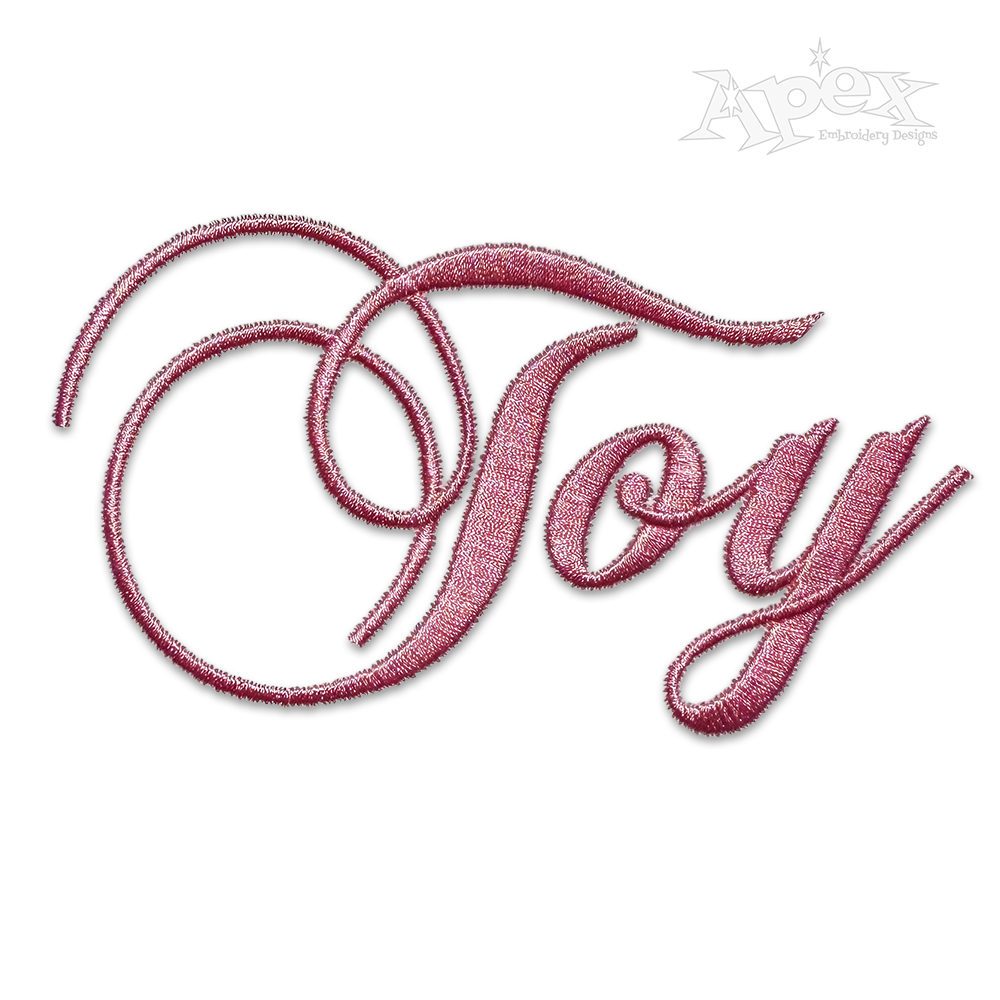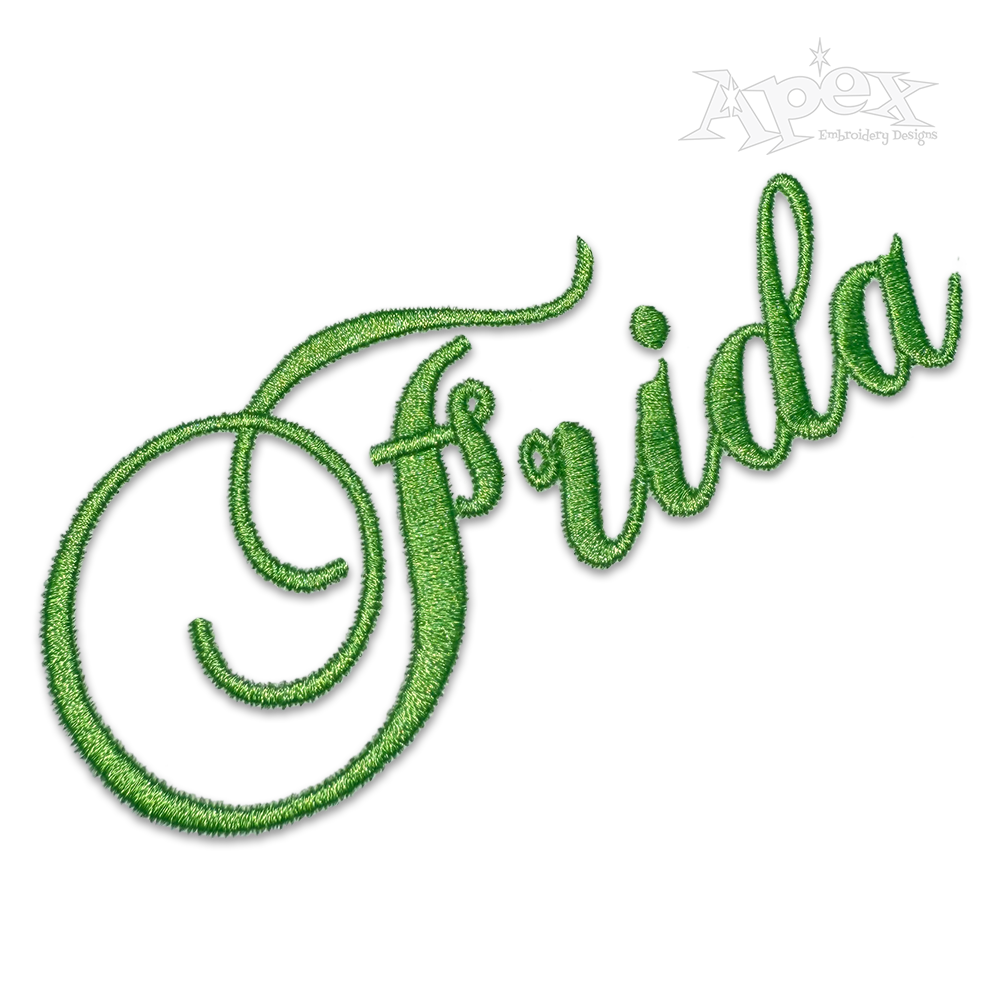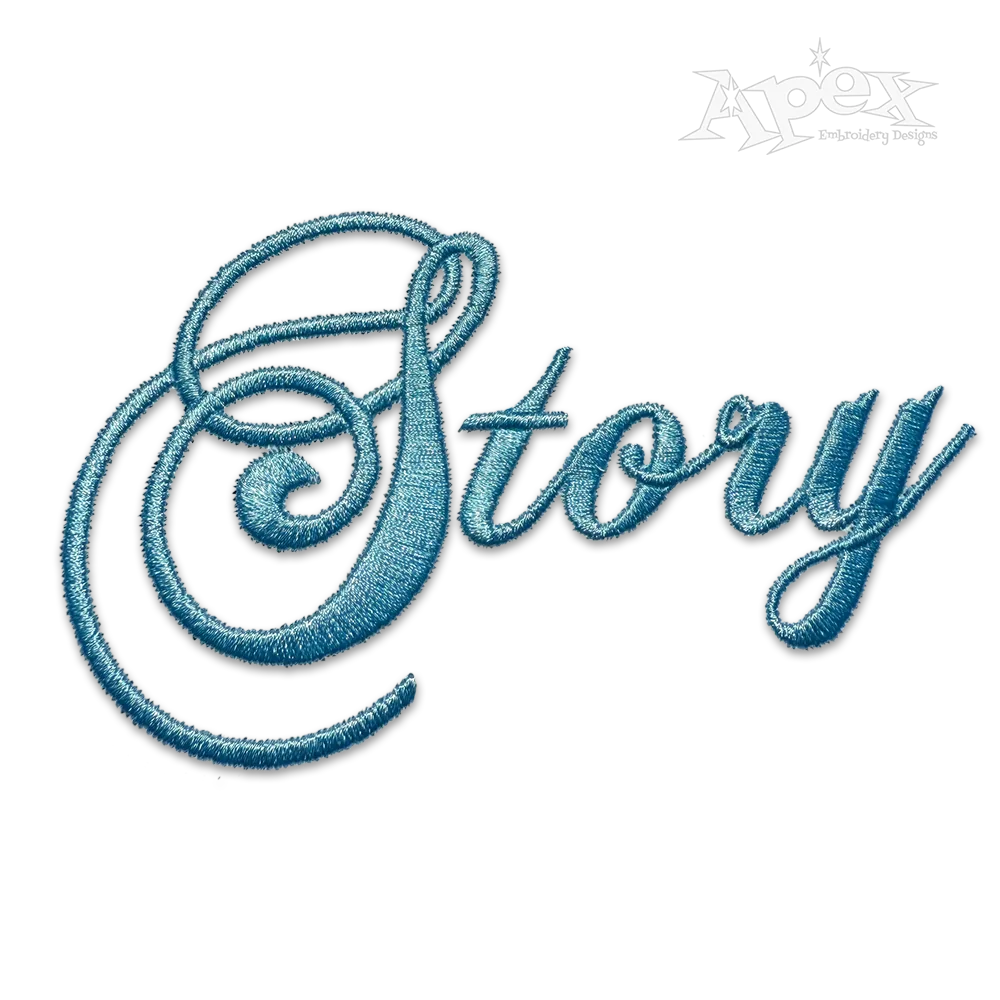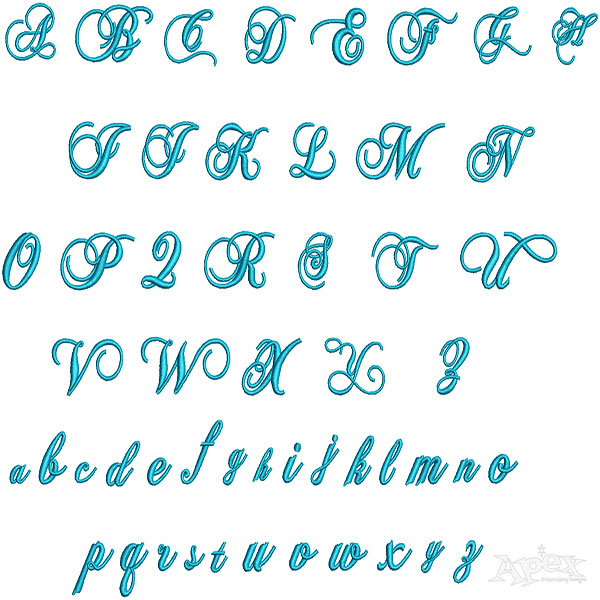
Story Book Embroidery Font
Drawing inspiration from the gold-leafed spines and hand-drawn initial capitals of vintage illustrated classics, our Story Book Embroidery Font brings timeless wonder to life beneath the needle. When digitizing this charming alphabet, we wanted every swoop, terminal, and crossbar to evoke the nostalgic warmth of an enchanted tale being whispered before bedtime. It strikes an exquisite balance between storybook whimsy and tailored elegance, flowing with a natural rhythm that turns simple custom monogramming and personalized phrases into cherished, embroidered keepsakes.
Project Ideas for Story Book Embroidery Font
The nostalgic storybook character of this satin stitch alphabet lends itself to a broad array of heirloom needlework and upscale lifestyle accents:
- Heirloom Nursery Bedding: Embroider newborn names or birth initials onto scalloped baby blankets, cot duvets, and linen pillows.
- Luxury Table Linens: Stitch crisp single-letter monograms in the corners of hemstitched linen cocktail napkins and holiday dinner runners.
- Bridal Party Keepsakes: Personalize silky getting-ready robes, bridal clutch linings, and honeymoon canvas totes for the wedding party.
- Bespoke Resort Wear: Add jaunty, characterful lettering to linen camp shirts, sun hats, and poolside terry coverups.
- Grand Statement Decor: Use the sweeping 10" or 12" letters to create monogrammed nursery wall banners, bespoke reading-nook floor cushions, or dramatic holiday tree skirts.
- Personalized Gifting: Elevate cozy knit cardigans, canvas book satchels, and velvet stockings with storybook charm.
Because this font balances lyrical curves with legible geometry, it performs brilliantly across classic and contemporary embroidery placements:
- Corner Diagonal: Angle 1" to 1.5" letters 45 degrees across the point of cocktail napkins or handkerchief hems for timeless luxury.
- Left Chest & Pocket: Position a 2" or 3" single monogram or stacked initials cleanly on pyjama pocket tops, children’s rompers, or oxford shirts.
- Cuff & Collar Accents: Utilize the 0.75" size along tailored shirt cuffs or collar points for an understated, bespoke monogramming touch.
- Center Front Framing: Position the 6" to 12" uppercase letters centered on toss pillows, quilt medallions, or tote bags where the fluid letterforms can take center stage.
Story Book Embroidery Font Craft & Letterform Details
Digitizing a font with this much personality requires a meticulous hand. Rather than relying on automated conversion, each letterform in the Story Book alphabet was individually drafted to honor the organic fluidity of vintage calligraphy. The generous downstrokes feature graduated satin column widths that gently taper into rounded serifs, avoiding the blunt rigidity common in modern machine fonts.
We engineered the underlay foundation specifically for each size tier. The smaller sizes feature precise contour underlay to maintain tack-sharp edge definition without stitch build-up, while the larger and extra-large sizes incorporate specialized fill transitions and structural anchoring to prevent puckering on fine fabrics. Thread angles turn smoothly around every arch and loop, catching the ambient light to create a rich, tactile luster that feels truly hand-embroidered.